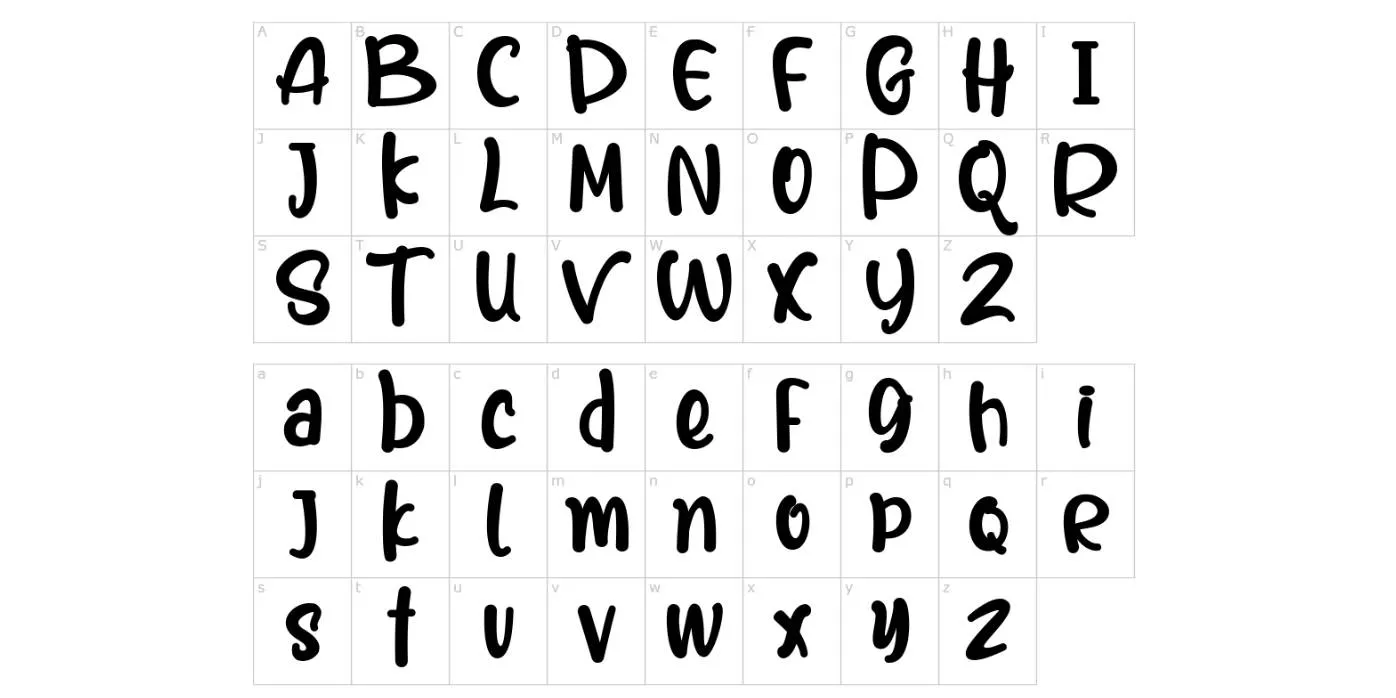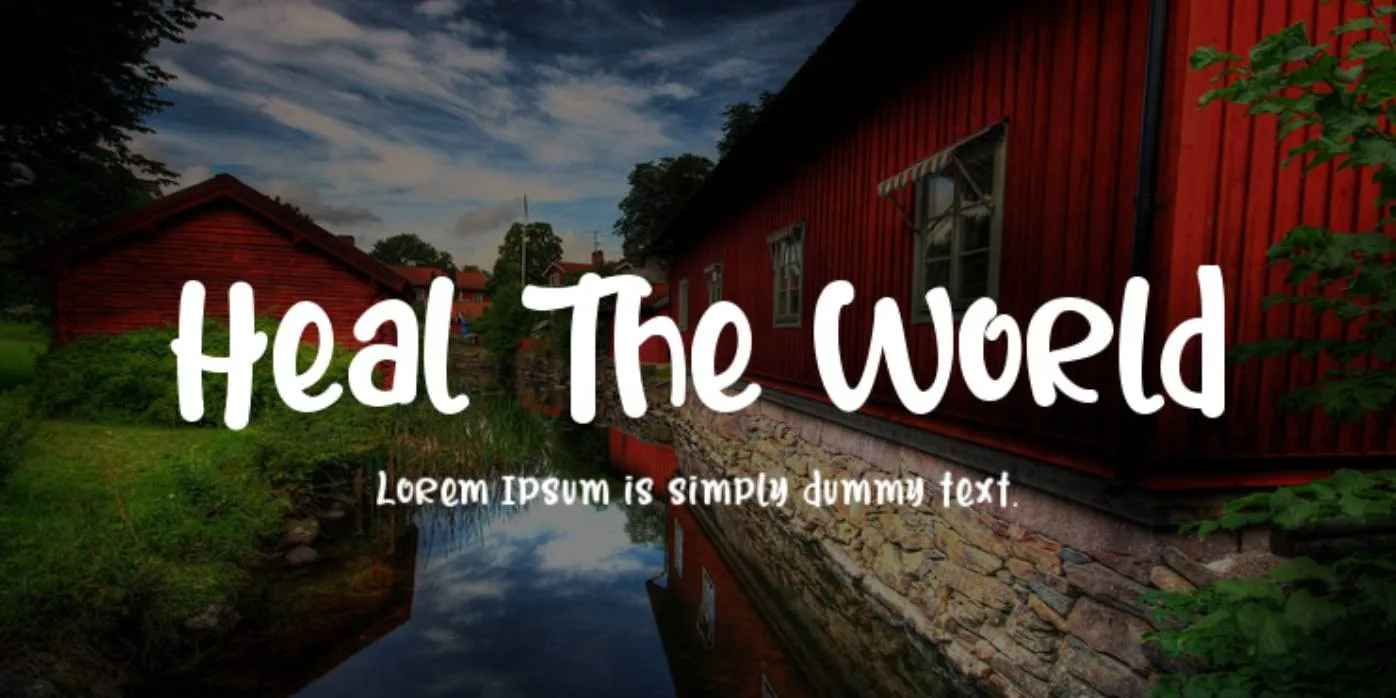
Heal The World Font
Here we discuss detailed information about the Heal the World Font. This font was designed by Letterara and Manufactured by Thomas Aradea. It is the cutest font of handwritten type with creative ideas. It falls under version 1.00.
The family class of this font is the script. The weight of the font is Semi-Bold and the width of the font is medium(normal). The pattern nature of the font is regular and its pitch is not monospaced. It can be paired with other fonts to give an attractive look to our projects like vitrina font.
It can also be downloaded on many devices such as PC/MAC and Linux. An online generator tool is also provided for this font to check and change simple text into a stylish look.  Usage It is a friendly and interesting font. You can use it for making different projects. It can be used for making headlines for an eye-catching look.
You can also make posters for any project by using this font with images on the background. It is a good choice for branding and product packing projects. It can be used for making modern calligraphy also. You can also use this font to make all types of handwritten documents in a very stylish way.
It can also be used for making logos of different brands. This stunning typeface has characters, symbols, numbers, capital letters, small letters, punctuations, and special characters. It can be used for printing text on T-shirts for any occasion. You can also make banners from this font to attract others.
FAQs! Who is the designer of the Heal the World font? This typeface was designed by Letterara and Manufactured by Thomas Aradea. This font is the cutest font of handwritten type with creative ideas.